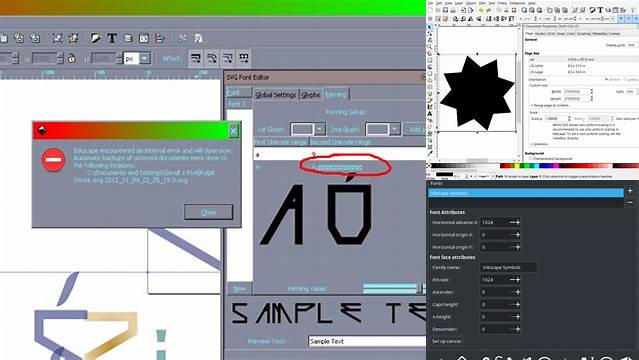
SVG Font Editor: Unleash Inkscape's Power!
Hey guys! Ever wondered how to create your own fonts or tweak existing ones? Well, you're in the right place! Today, we're diving deep into using Inkscape as an SVG font editor. It's like having a superpower for typography, and trust me, it's easier than you think. Let's get started!
1. Inkscape as a Font Editor: A Comprehensive Guide
So, you wanna use Inkscape as a font editor, huh? Awesome! Inkscape isn't just for creating logos and cool graphics; it's a surprisingly capable tool for font design too. Using it as an SVG font editor involves creating and manipulating glyphs (those are the individual characters in a font) as vector paths. It might sound intimidating, but with a little practice, you'll be whipping up custom fonts in no time. Think of it as drawing letters, but with the ability to scale them infinitely without losing quality. You can import existing fonts in formats like SVG and then modify each character, or you can start from scratch, letting your creativity flow. One of the cool things about using Inkscape is the precision it offers. You can zoom in super close and adjust every curve and line to perfection. Plus, because it's vector-based, your fonts will look crisp and clean at any size. We'll walk through the basic steps, from setting up your workspace to exporting your finished font, so stick around! I promise it'll be fun. Get ready to unleash your inner font designer!
2. Creating Custom Fonts with Inkscape
Alright, let’s get our hands dirty and start creating custom fonts with Inkscape. This is where the magic happens, guys! The first step is to fire up Inkscape and create a new document. Think about the overall style you want for your font. Is it going to be elegant and script-like, or bold and blocky? Knowing this upfront will guide your design choices. Next, you'll start drawing your glyphs. Each letter, number, and symbol needs to be created individually. Use Inkscape’s drawing tools – the Bezier tool is your best friend here – to create the shapes of your characters. Remember, consistency is key! Try to maintain a consistent stroke width and style across all your glyphs. You can use guides and grids to help you align elements and keep everything uniform. Don't be afraid to experiment and try out different ideas. This is your chance to let your creativity shine! Once you're happy with your basic glyphs, you can start adding details and flourishes. This could include serifs, decorative elements, or unique curves. Finally, remember to save your work often! Font design can be a time-consuming process, so you don't want to lose any progress. And remember, patience is your friend. Creating a custom font takes time and effort, but the results are totally worth it.
3. Editing Existing Fonts in Inkscape
So, you've got an existing font, but you want to give it your own personal touch? No problem! Inkscape makes it super easy to edit existing fonts. First, you'll need to convert the font to SVG format, which is something several online tools can help you with. Once you've got your font in SVG format, open it up in Inkscape. You'll see each character as a separate object, which you can now manipulate. You can change the shape of the letters, add new elements, or remove existing ones. Want to make the serifs sharper? Go for it! Want to add a cool swash to a particular letter? Easy peasy! Just remember that when you're editing an existing font, it's important to maintain the overall style and consistency of the font. You don't want to end up with a font that looks disjointed or unbalanced. Pay attention to the spacing between letters too. This is called kerning, and it's crucial for making your font look professional. Inkscape has tools that can help you adjust the kerning of your font. Editing existing fonts is a great way to learn about font design and to create a font that's truly unique. Plus, it can save you a lot of time compared to creating a font from scratch.
4. Understanding SVG Font Structure
Okay, let's talk about the nitty-gritty: the SVG font structure. Understanding how an SVG font is organized will make your editing and creation process so much smoother. An SVG font is basically an XML file that contains all the information about the font, including the shapes of the glyphs, the kerning, and the metadata. The main element in an SVG font is the <font>
element, which contains all the other elements. Inside the <font>
element, you'll find elements like <glyph>
, which defines the shape of each character, and <hkern>
, which defines the kerning pairs. Each <glyph>
element contains a d
attribute, which is a string of commands that define the path of the glyph. These commands tell Inkscape how to draw the letter. Understanding these commands can be tricky, but it's worth learning if you want to have full control over your font design. You can also use Inkscape's XML editor to directly edit the SVG font structure. This is an advanced technique, but it can be useful for making precise adjustments or for automating certain tasks. Just be careful when editing the XML directly, as it's easy to make mistakes that can break your font. But don't worry, with a little practice, you'll be a pro in no time.
6. Troubleshooting Common Font Issues in Inkscape
Okay, let's be real – sometimes things go wrong. So, let's troubleshoot some common font issues in Inkscape. One common issue is that your font doesn't show up in other applications after you've installed it. This can happen if the application hasn't refreshed its font list. Try restarting the application or even your computer. Another issue is that your font looks distorted or pixelated. This can happen if the font wasn't properly converted to TTF or OTF format. Make sure you're using a reliable font converter and that you're selecting the correct settings. Also, check the path definitions inside your SVG code if you're comfortable doing so. Sometimes, the spacing between letters can look weird. This is usually a kerning issue. Inkscape has tools that can help you adjust the kerning of your font, so play around with those settings until you get the spacing right. If you're still having trouble, don't be afraid to ask for help! There are tons of online forums and communities where you can get advice from other font designers. And remember, even the pros run into problems sometimes. The key is to stay patient and persistent, and eventually, you'll figure it out.
7. Advanced Techniques for Font Design with Inkscape
Ready to take your font design skills to the next level? Let's dive into some advanced techniques for font design with Inkscape! One advanced technique is to use Python scripting to automate certain tasks. For example, you could write a script that automatically generates a set of bold or italic variations of your font. This can save you a ton of time and effort. Another advanced technique is to use Inkscape's extensions to add special effects to your font. For example, you could use the